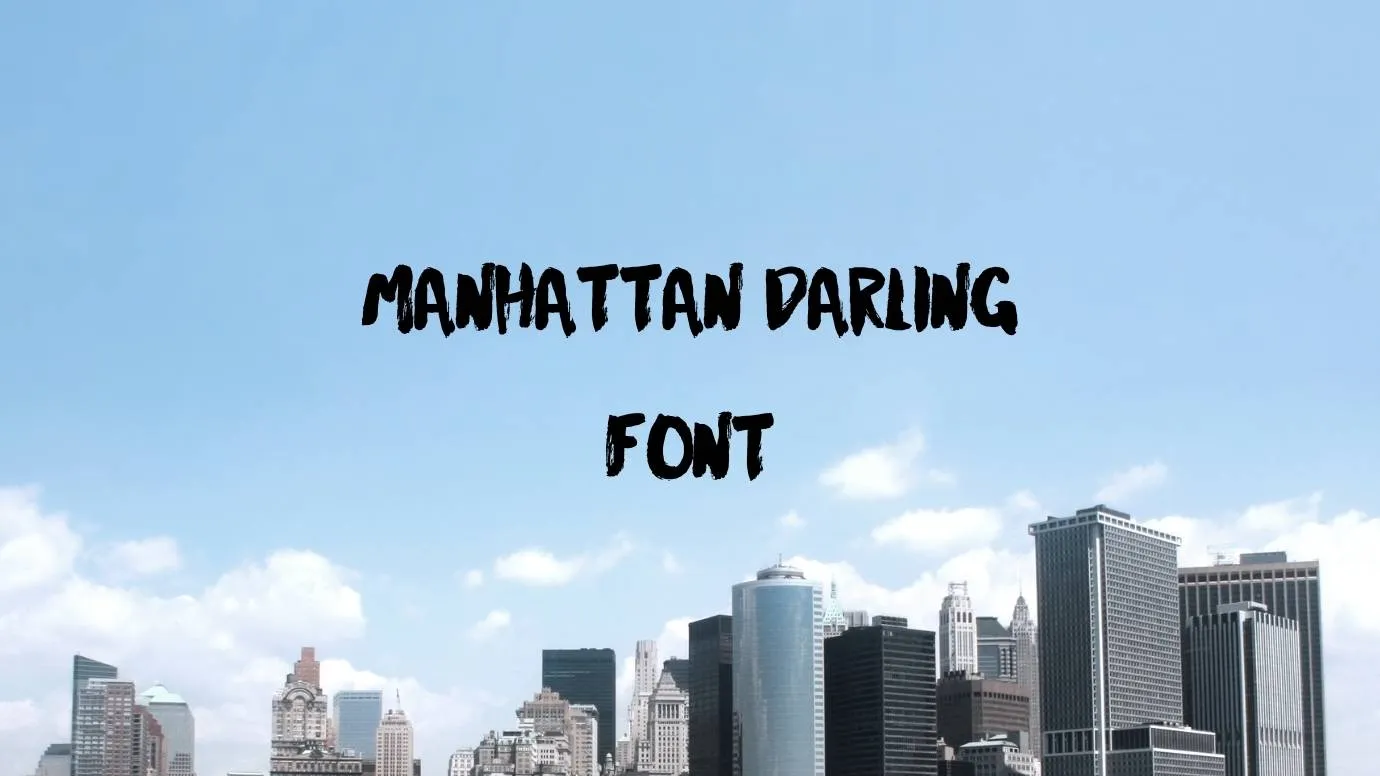
Manhattan Darling Font Family is a robust, precise yet flawlessly imperfect brush script font family created and distributed by Callie Rian & Co. in 2015.
This typeface provides good vibes to headlines when used with the pairing of Levi Brush font. Barlow font and Boogaloo Font are the closest fonts to this typeface due to their similar high-quality features and styles.
Manhattan Darling Font Family